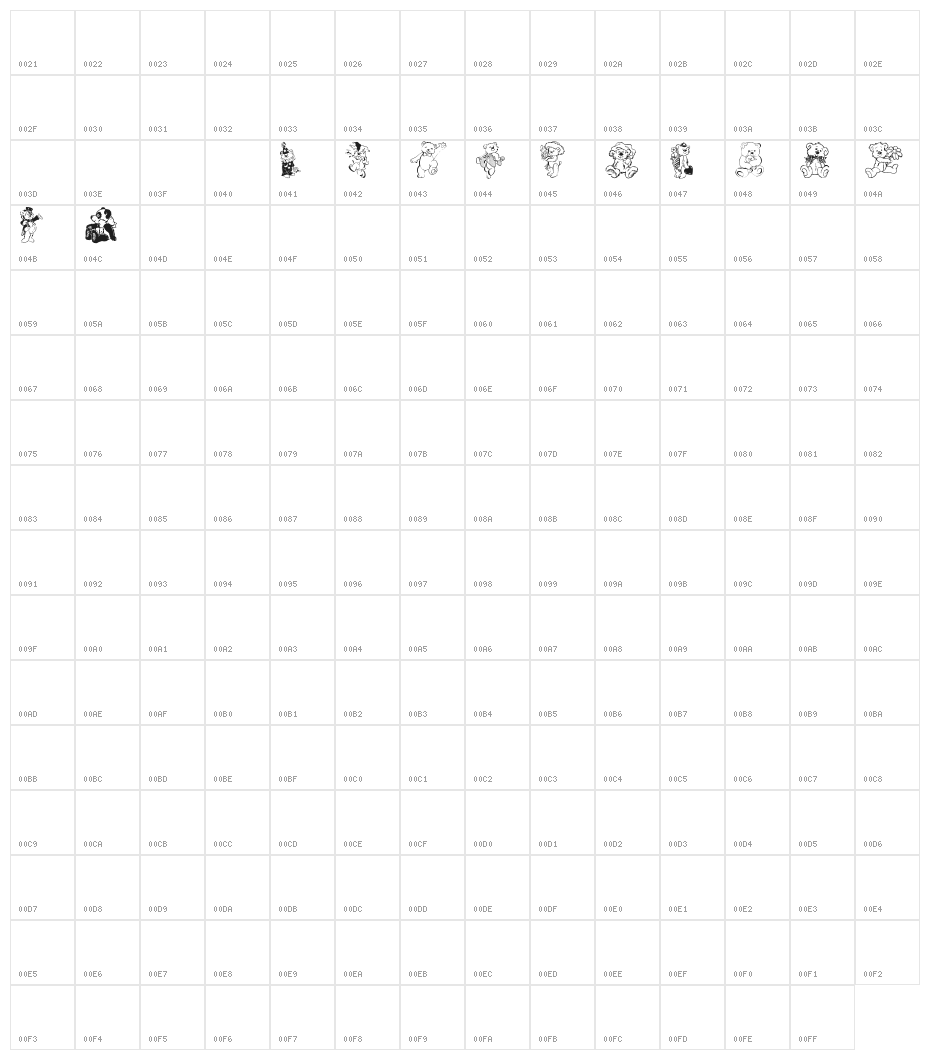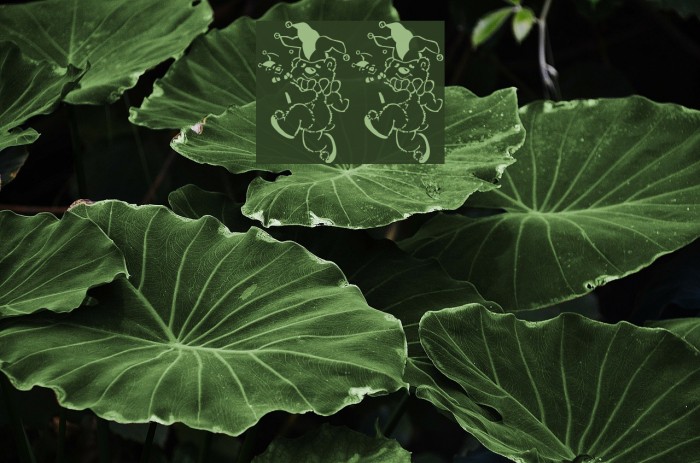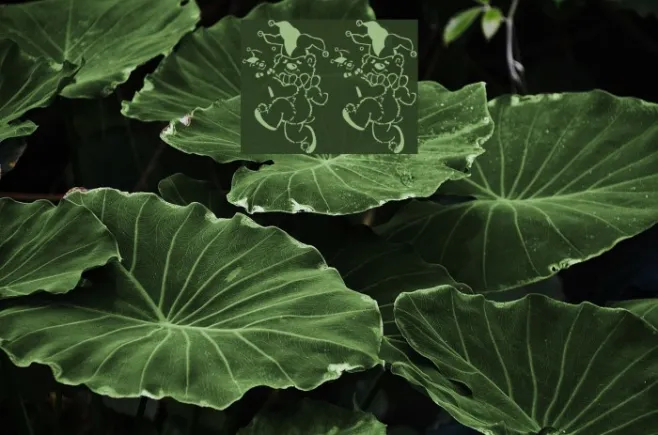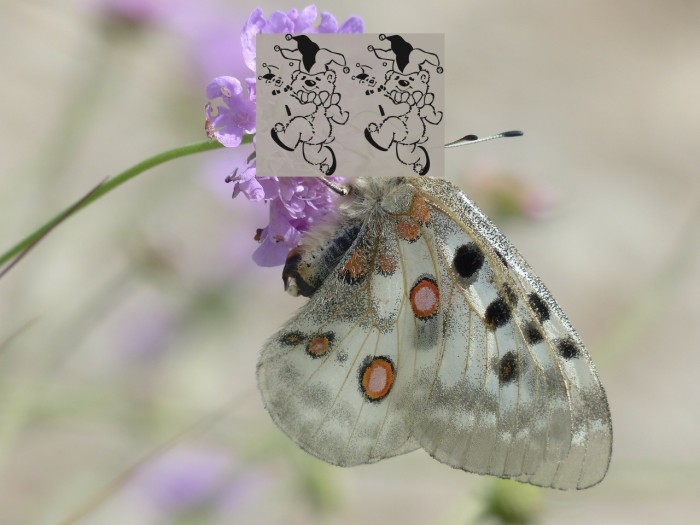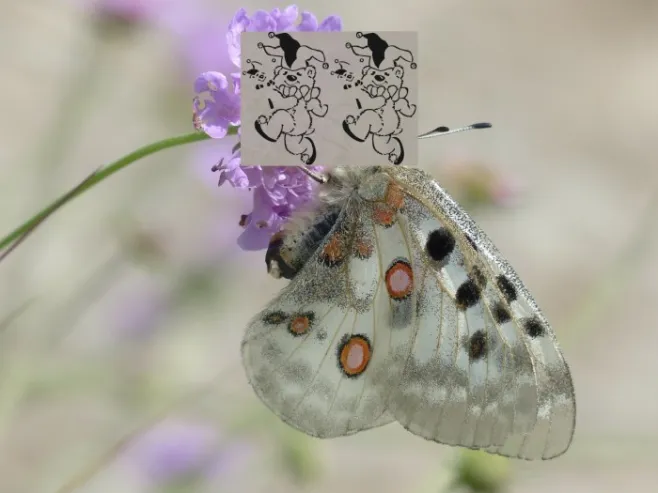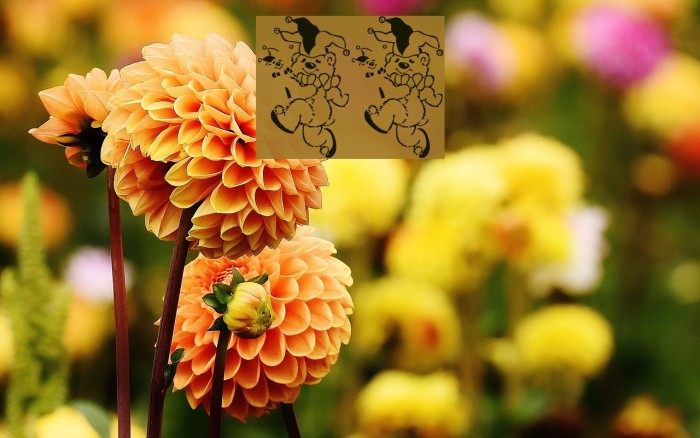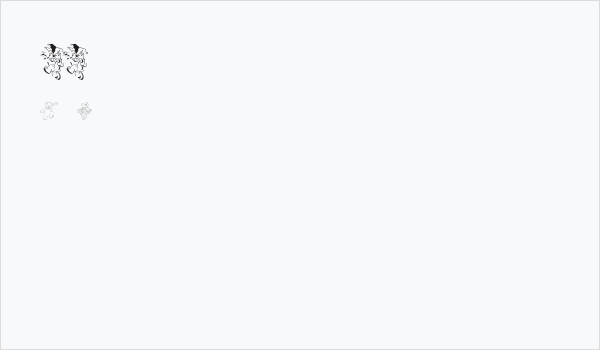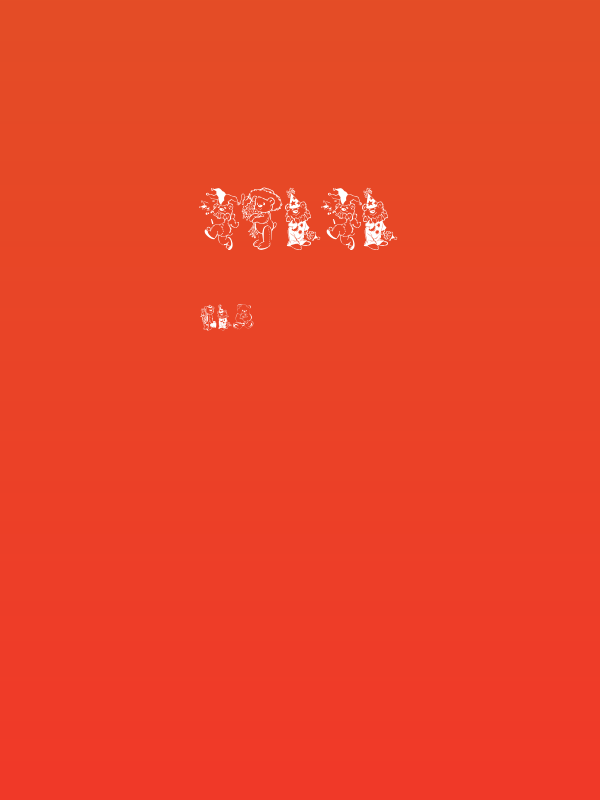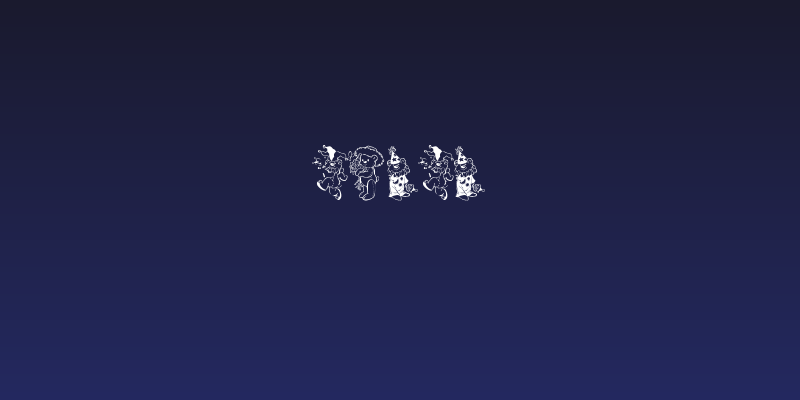
BearBats Font
BearBats Description
A playful and decorative collection of illustrated bear characters, each representing a different letter or symbol, rendered in a hand-drawn, cartoon style with whimsical details.
| Overall Style | Decorative, Playful, Cartoon |
| Use Case | Logos, Headlines, Themed graphics, ChildrenΓ’β¬β’s content |
| Proposed Projects | ChildrenΓ’β¬β’s books, greeting cards, playful branding, educational materials, party invitations. |